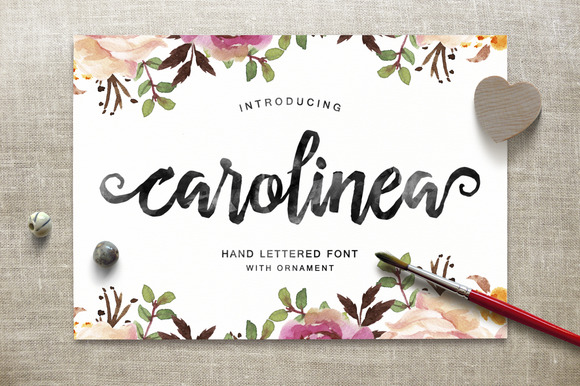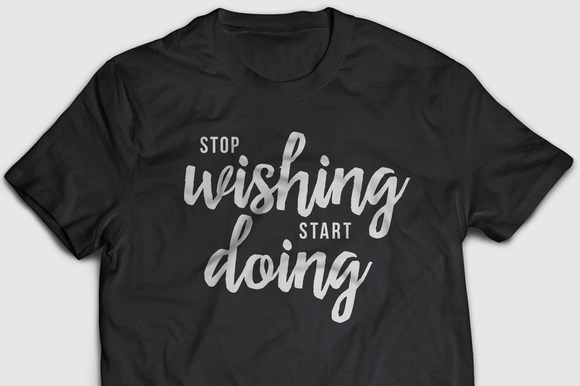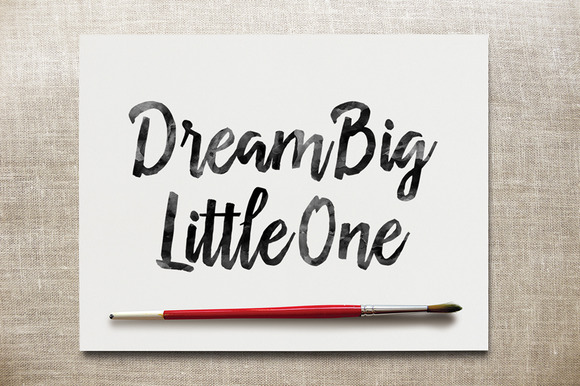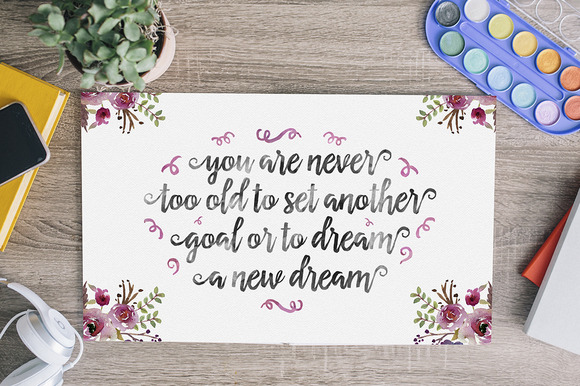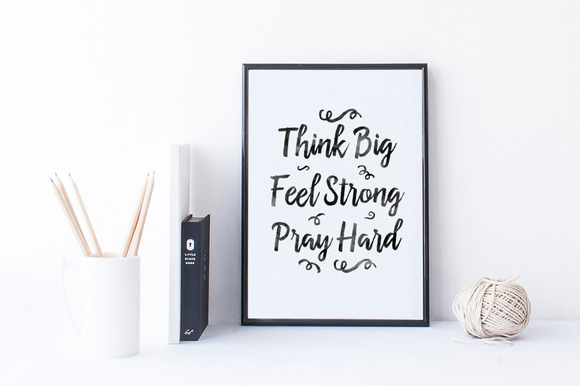
Carolinea Font
About Carolinea Font
Carolinea is a hand lettered script font. It has a irregular baseline, rough edges and looks bold and organic. Including initial and terminal letters, ornament, ligatures and multiple language support.